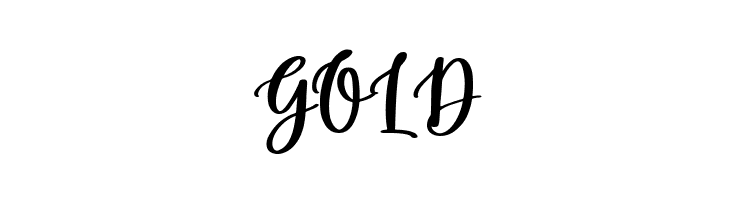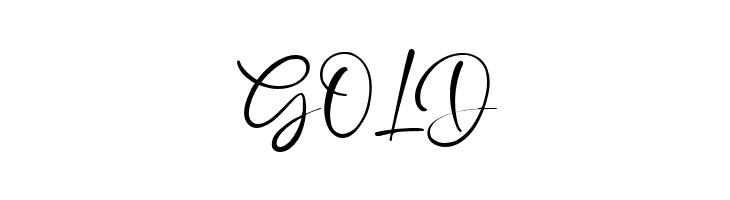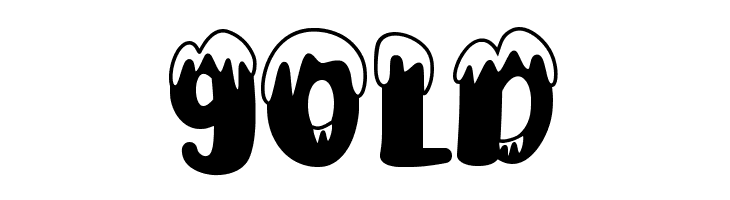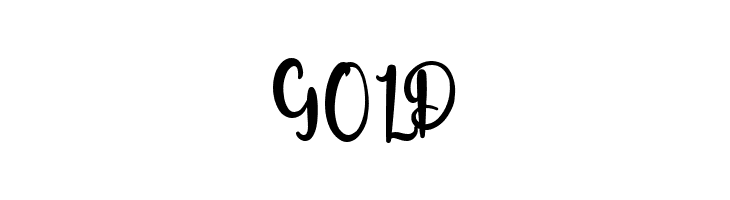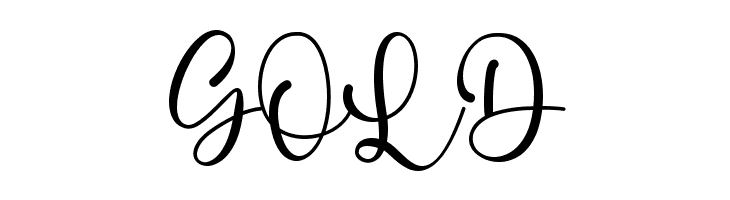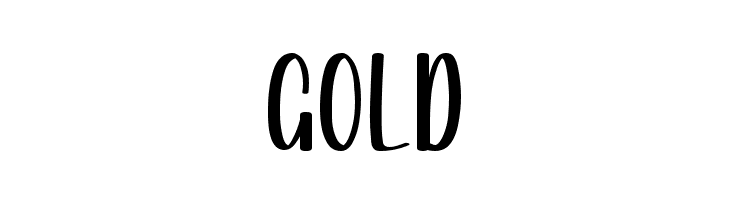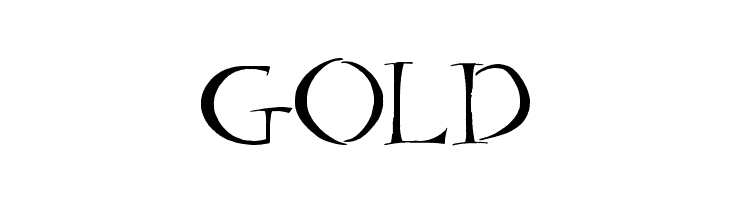
A playful, handwritten-style font with tall, narrow characters and rounded edges.
A playful and elegant script font with flowing, cursive letters.
A playful, jagged font with a hand-drawn, crocodile scale-like texture.
A playful, hand-drawn font with tall, narrow letters and a whimsical style.
A playful, bold, and hand-drawn style font with a whimsical touch.
A playful and expressive handwritten font with dynamic cursive letterforms.
A playful, cursive font with a whimsical and elegant style.
An artistic and elegant font with unique flair and smooth curves.
A bold, snow-capped decorative font perfect for festive designs.
A playful, flowing script font with elegant, cursive letterforms.